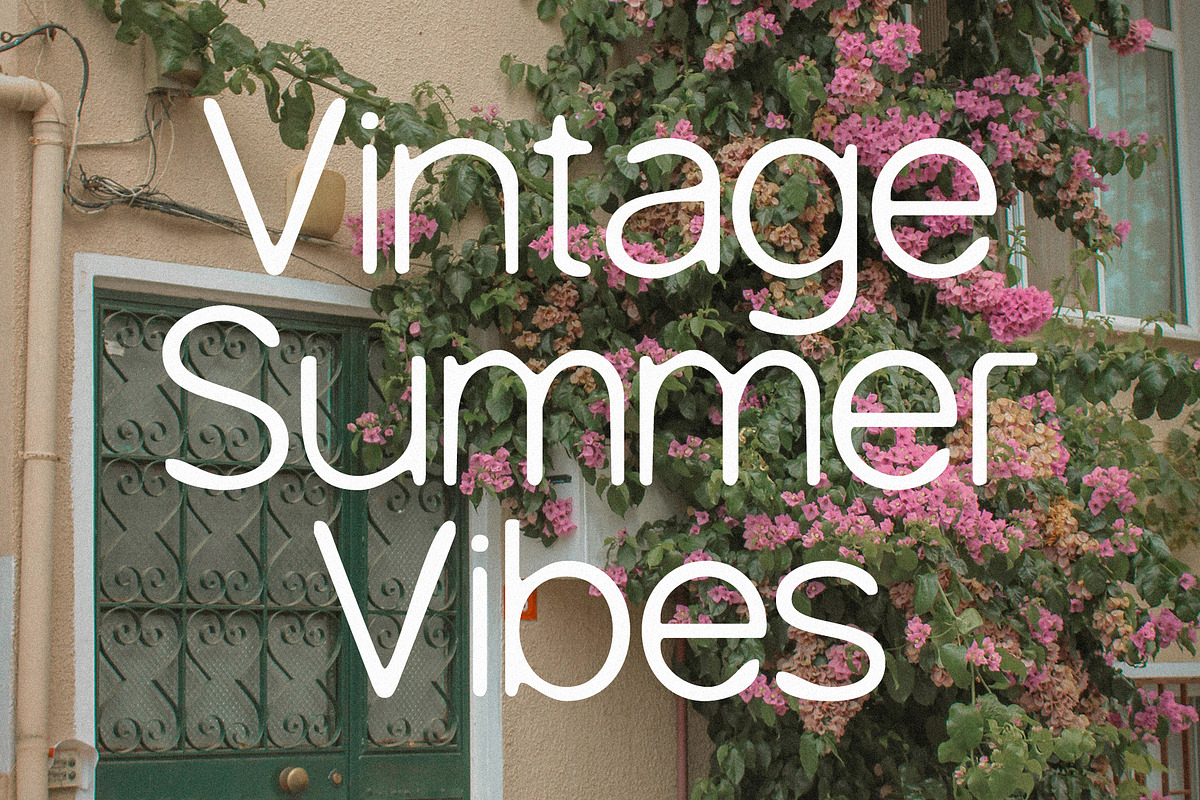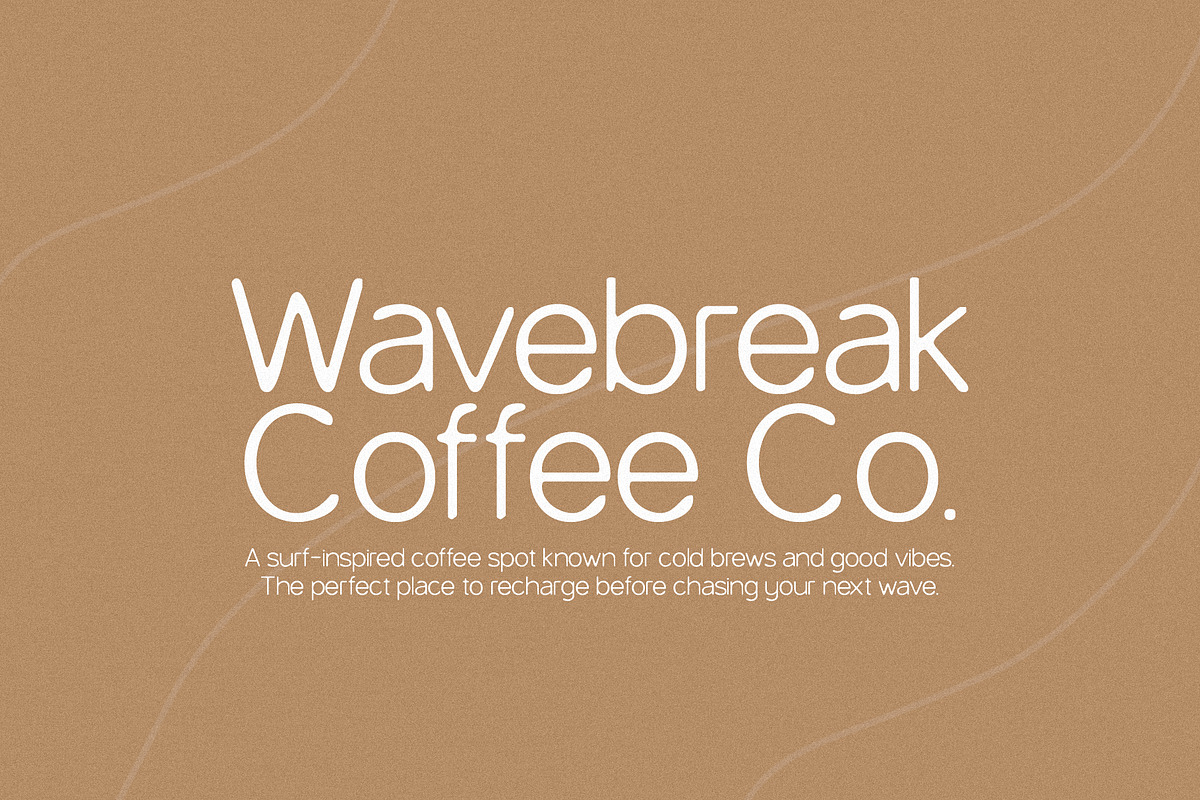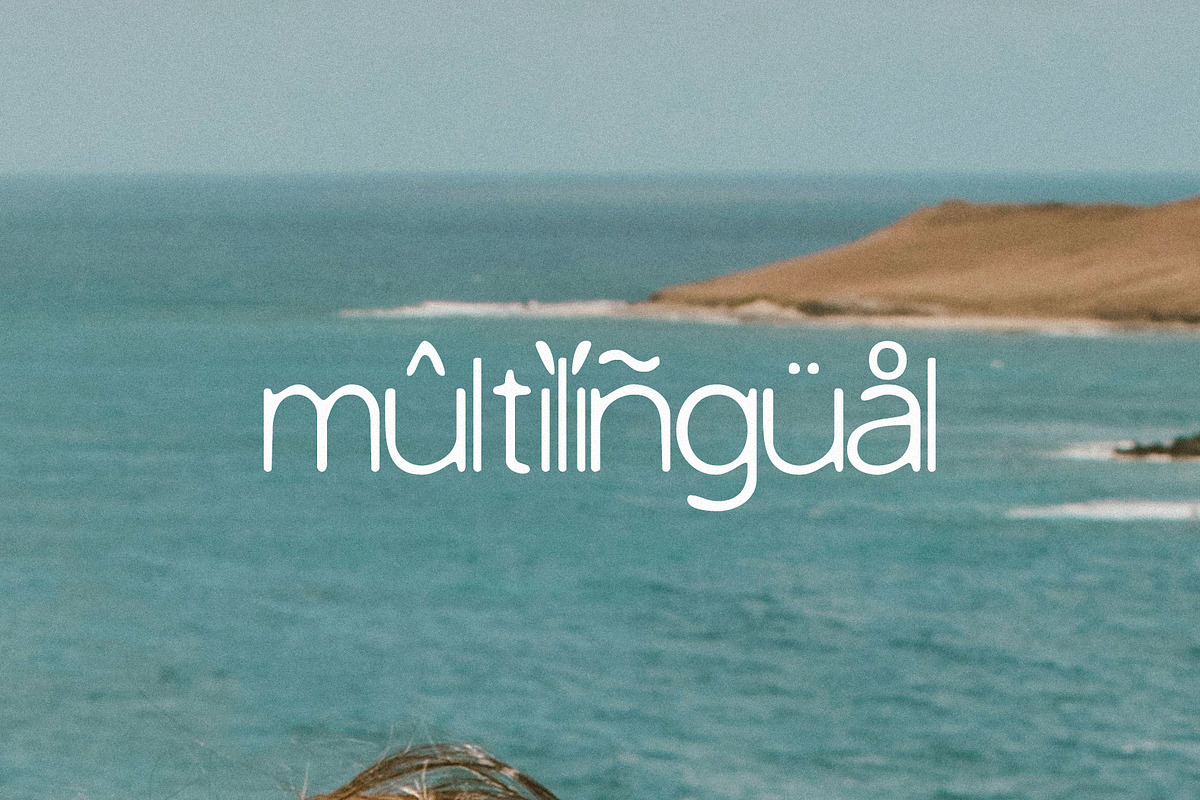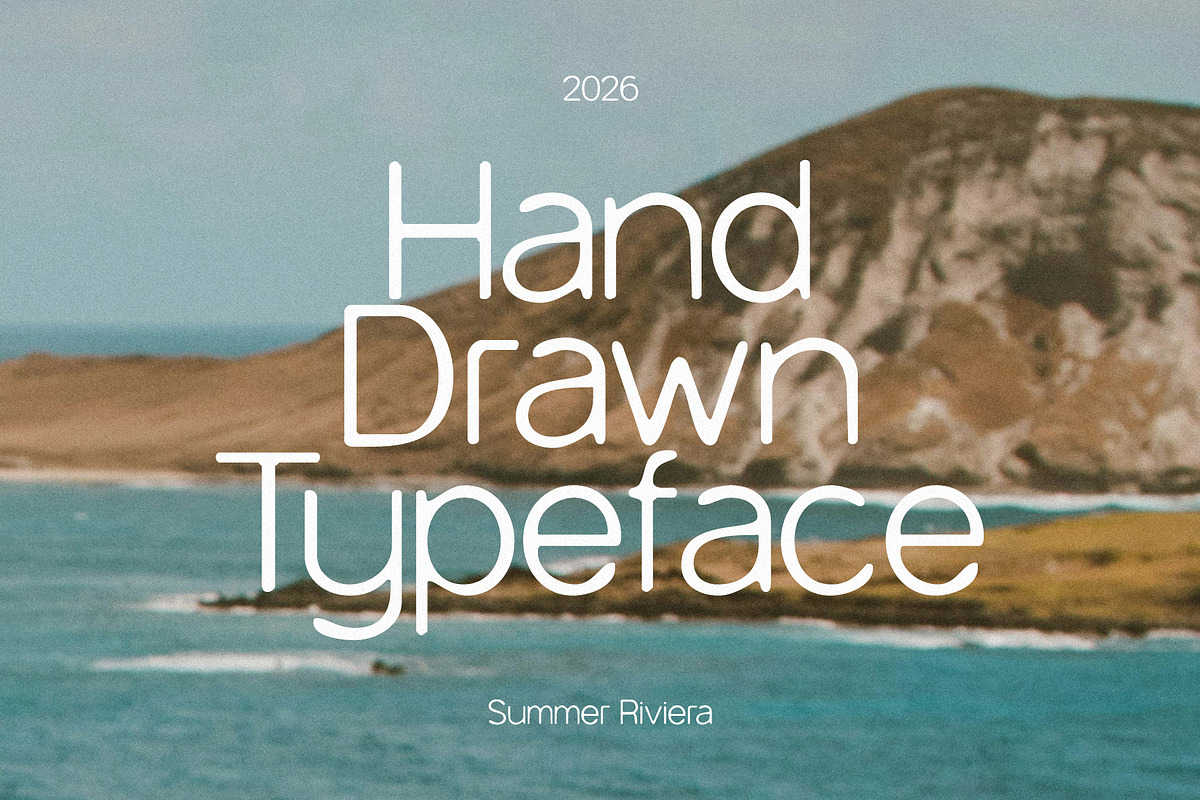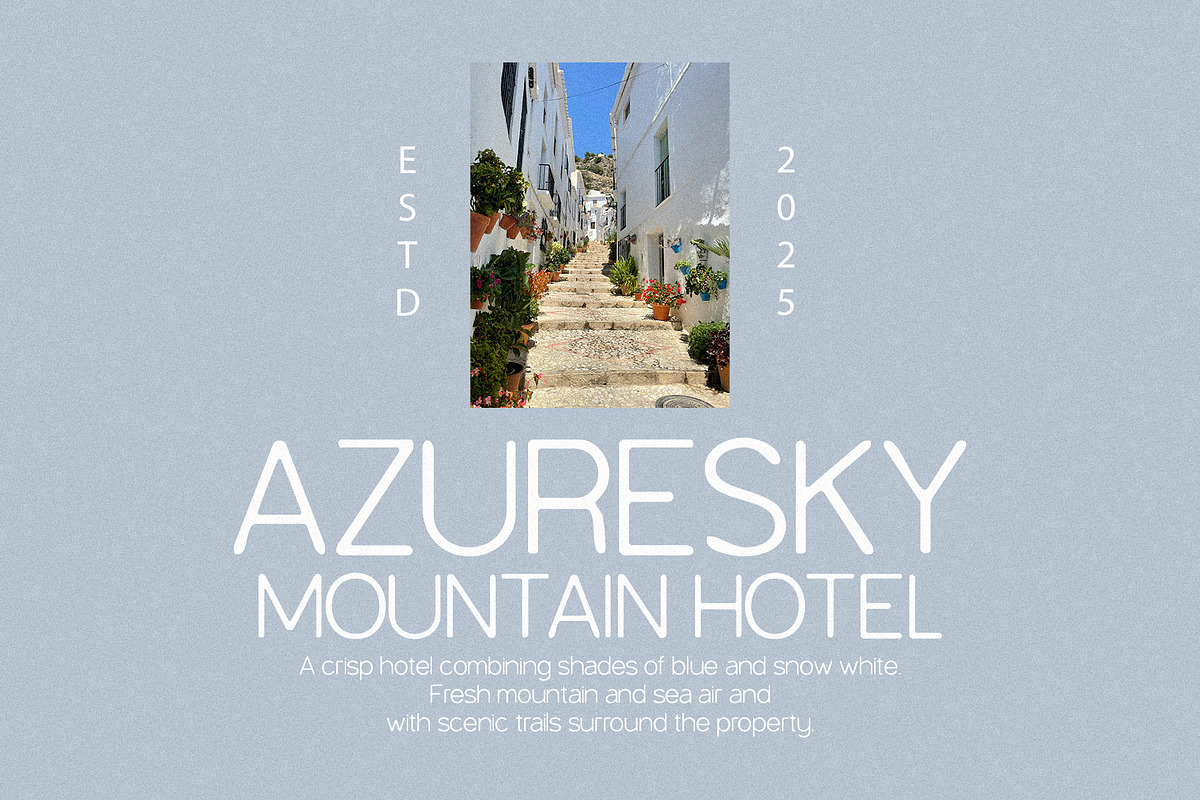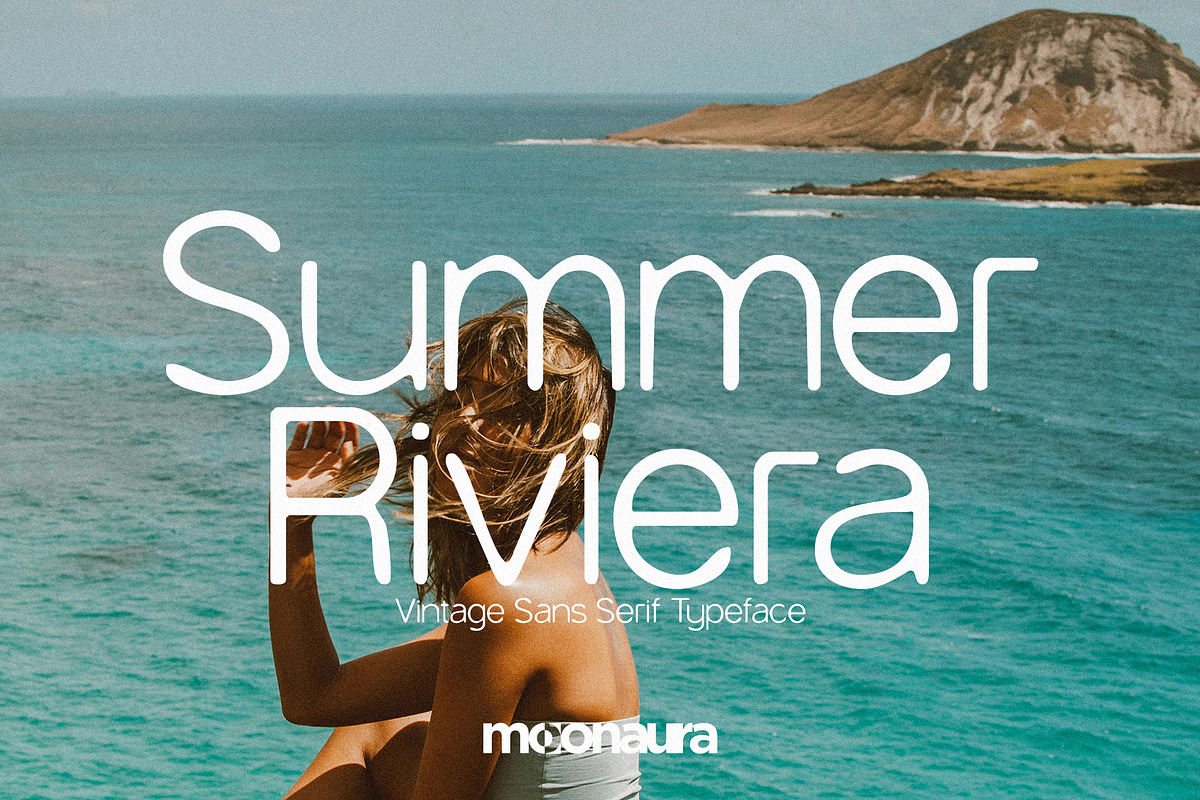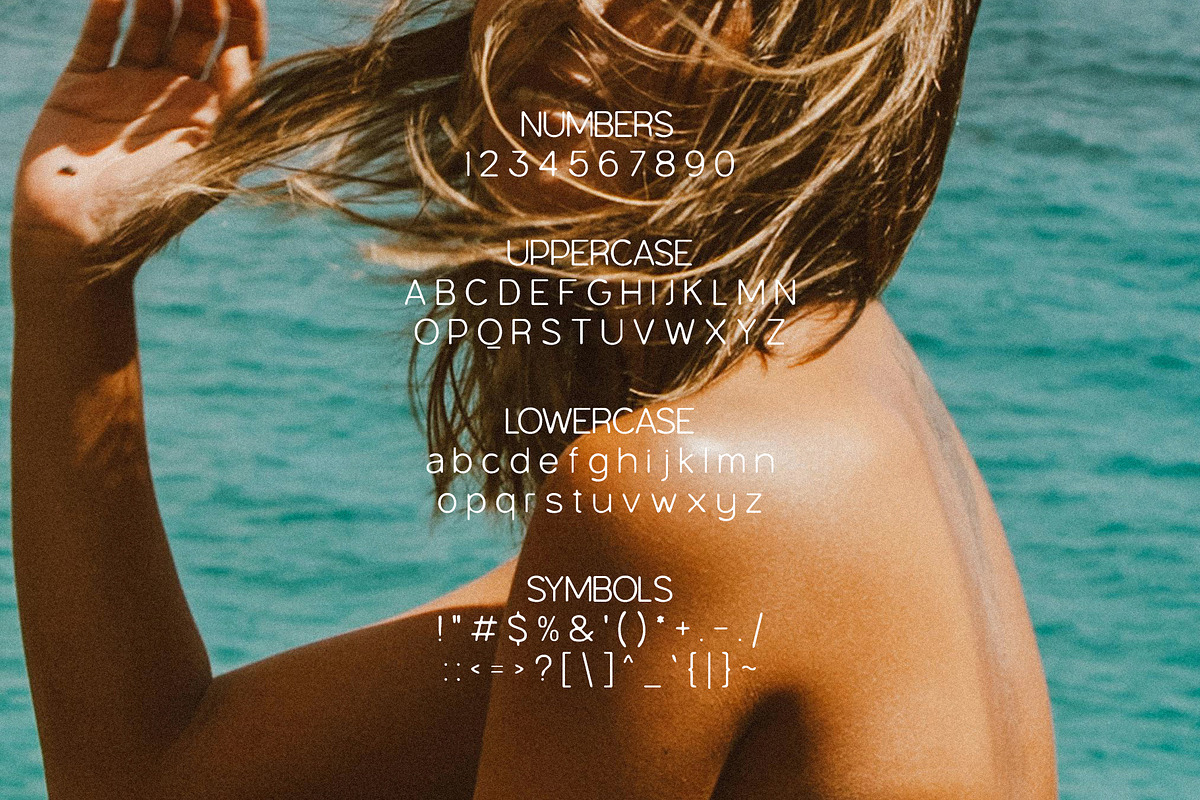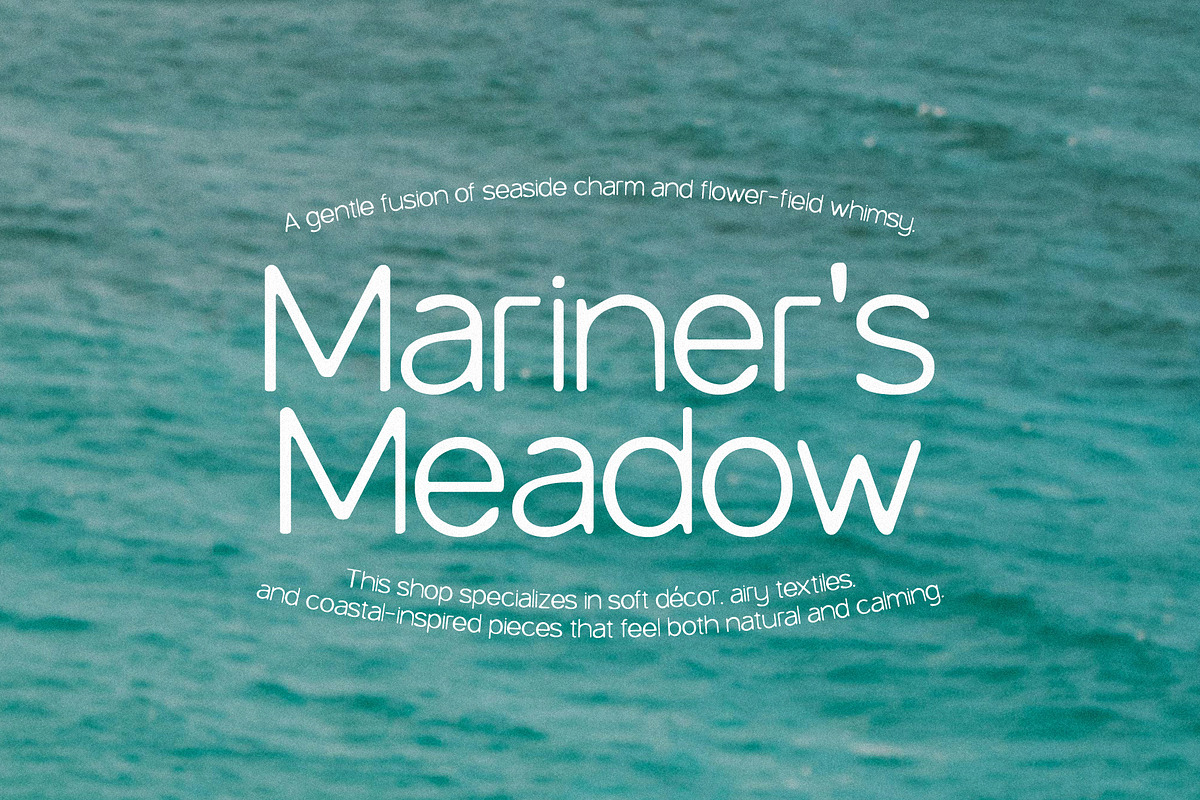
Summer Riviera Vintage & Summer Sans
Summer Riviera Vintage & Summer Sans is a sun-soaked font duo inspired by coastal escapes, retro postcards, and slow summer afternoons. Summer Riviera Vintage brings the charm-soft curves, nostalgic flair, and a timeless Riviera feel-perfect for headlines that want to feel romantic, relaxed, and effortlessly cool. Summer Riviera keeps things fresh and modern with clean lines and easy readability, making it ideal for body text, logos, and everyday design needs. Together, they strike the perfect balance between vintage soul and contemporary simplicity-made for branding, packaging, social media, and any design that wants to feel like summer that never ends.